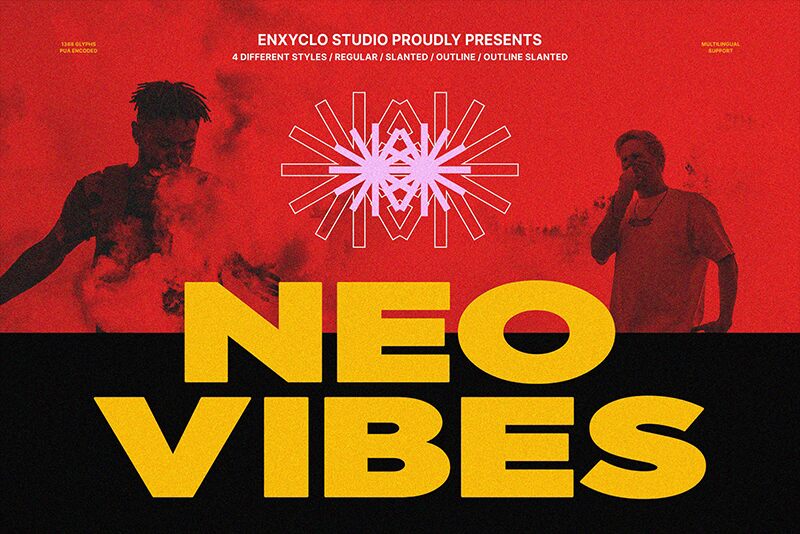
NCL Neovibes font by Enxyclo Studio is a free modern geometric sans serif font. This energetic and impactful font is perfectly suitable for contemporary applications in branding and advertising. Its urban, trendy, and assertive qualities add to the font’s potential to create visual and eye-catching text designs.
Versatile by nature, it can be used in headlines or as a supporting font. NCL Neovibes is a great font to integrate into branding projects such as logo and packaging design. Body text and large titles on posters and billboards are also exceptional use cases. Websites, applications, books, magazines, newspapers, and e-publications are additional recommendations.